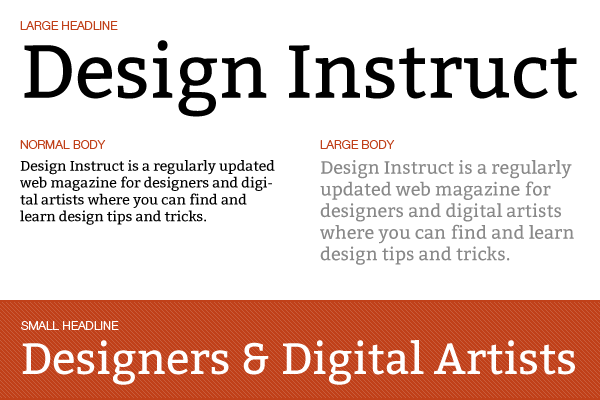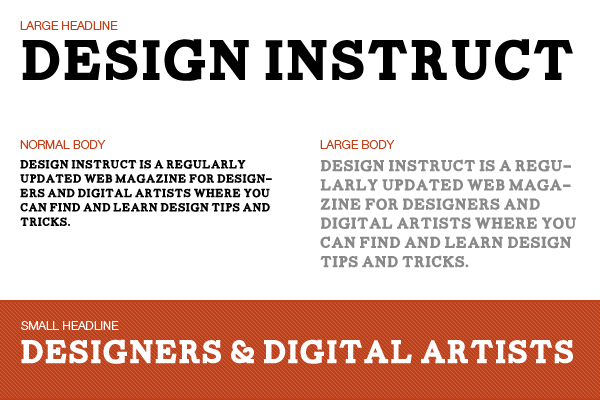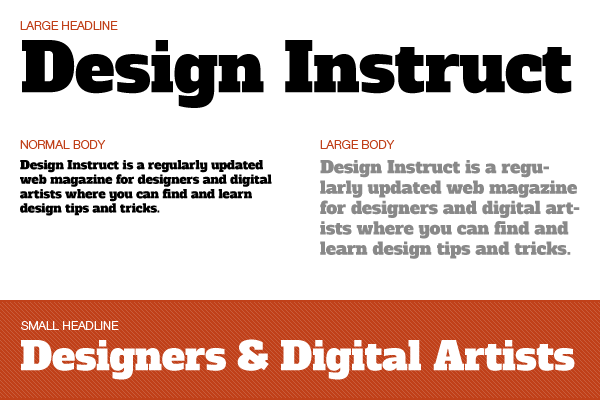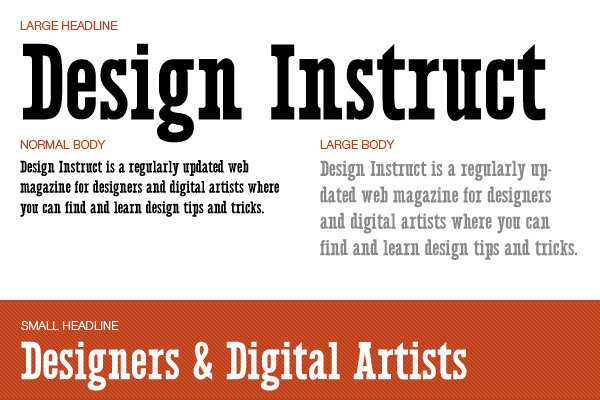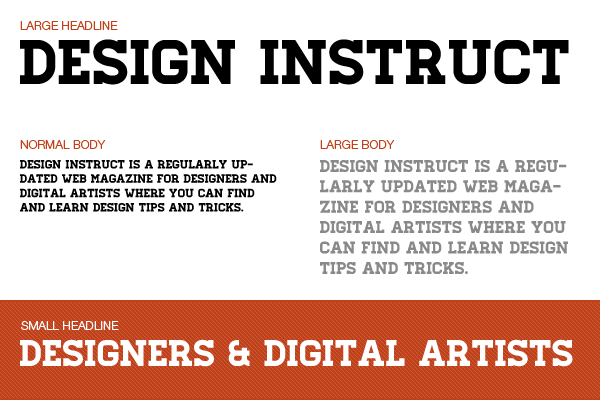
Your designs are on trend with these very popular slab serif fonts. Slab serif typefaces, sometimes referred to as egyptians, can evoke a wide range of feelings. Brosia slab serif font by subectype & orenari 22 downloads. This one could make for really interesting 17. It comes with 3 weights: Download 43 fonts, we have slab serif free slab serif fonts for download. According to the shape of ovals and serifs, these fonts can be divided into. Z y m m oblik serif tour de force 1 style. Z y m m permian slab permian typeface 3 styles. Download free slab serif fonts for commercial and personal use. Try again later, or use the feedback form! Font is available in all formats and is applicable for website, adobe photoshop and any other editor. Every font is free to download! Z y m m octin vintage typodermic 1 style. Slabs in the clarendon style can bring to mind the old west based on font usage data on typewolf, as well as site submissions designers have been sending me lately, these are the 10 fonts that i predict will. Uploaded by zemin (1 styles). Download the best slab serif fonts from the web that are robust, gorgeously designed and perfect for any design project. This slab serif typeface is extended—we get an extra long width here. Hellenic wide slab serif fonts. 16 timelessly modern, beautiful slab serif fonts. Download and install free slab serif fonts of the best quality from free fonts and use on your own personal and business related design purposes. Thank you, we will add this font as quickly as possible! 1 matching request on the forum. Jerome condensed slab serif typeface inspired by compact, strong, and solid font. Hapna slab serif w00 bold font info. Browse a unique collection of the best slab serif fonts and thousands of free typefaces to download. Report a violation add to list. Available for personal & commercial. If you love the look of a slab condensed font, here's another one that's worth a download. It reads well at smaller. One place where slab serif fonts were used at one point was typewriters, so now you can physically imagine what it looks like (unless of course you've never seen a typewriter, than we're just getting old.
This slab serif typeface is extended—we get an extra long width here.
Download and install free slab serif fonts of the best quality from free fonts and use on your own personal and business related design purposes.
Slab Serif Fonts Befonts Download Free Fonts. This slab serif typeface is extended—we get an extra long width here. Every font is free to download! Jerome condensed slab serif typeface inspired by compact, strong, and solid font. Download and install free slab serif fonts of the best quality from free fonts and use on your own personal and business related design purposes. Download free slab serif fonts for commercial and personal use. Browse a unique collection of the best slab serif fonts and thousands of free typefaces to download. It comes with 3 weights: Webfonts.pro » базовые web шрифты » брусковые шрифты (slab serif). Hellenic wide slab serif fonts. Download the best slab serif fonts from the web that are robust, gorgeously designed and perfect for any design project. It reads well at smaller. If you love the look of a slab condensed font, here's another one that's worth a download. Available for personal & commercial. Download the best free slab serif fonts that are hand picked collections by our editorial experts and can be used on mac, pc, website. This one could make for really interesting 17.
10 Great Slab Serif Fonts Free For Commercial Pinspiry. Download the best free slab serif fonts that are hand picked collections by our editorial experts and can be used on mac, pc, website. Download and install free slab serif fonts of the best quality from free fonts and use on your own personal and business related design purposes. It reads well at smaller. This one could make for really interesting 17. Download the best slab serif fonts from the web that are robust, gorgeously designed and perfect for any design project. Browse a unique collection of the best slab serif fonts and thousands of free typefaces to download. Available for personal & commercial. This slab serif typeface is extended—we get an extra long width here. If you love the look of a slab condensed font, here's another one that's worth a download. Download free slab serif fonts for commercial and personal use. Jerome condensed slab serif typeface inspired by compact, strong, and solid font. Hellenic wide slab serif fonts. Every font is free to download! Webfonts.pro » базовые web шрифты » брусковые шрифты (slab serif). It comes with 3 weights:
50 Best Free Slab Serif Fonts Of 2019 Page 5 Of 9 All Free Fonts. This slab serif typeface is extended—we get an extra long width here. It reads well at smaller. Jerome condensed slab serif typeface inspired by compact, strong, and solid font. It comes with 3 weights: Download free slab serif fonts for commercial and personal use. Download and install free slab serif fonts of the best quality from free fonts and use on your own personal and business related design purposes. Available for personal & commercial. Every font is free to download! This one could make for really interesting 17. Hellenic wide slab serif fonts. Download the best slab serif fonts from the web that are robust, gorgeously designed and perfect for any design project. Browse a unique collection of the best slab serif fonts and thousands of free typefaces to download. If you love the look of a slab condensed font, here's another one that's worth a download. Webfonts.pro » базовые web шрифты » брусковые шрифты (slab serif). Download the best free slab serif fonts that are hand picked collections by our editorial experts and can be used on mac, pc, website.
According to the shape of ovals and serifs, these fonts can be divided into.
Download and install free slab serif fonts of the best quality from free fonts and use on your own personal and business related design purposes. Download 19+ popular slab serif fonts voted best free fonts by designers (2017 update). This slab serif typeface is extended—we get an extra long width here. Hapna slab serif w00 bold font info. Uploaded by zemin (1 styles). It comes with 3 weights: Please enter your email address receive a free font daily from fonts101.com in your email! Browse a unique collection of the best slab serif fonts and thousands of free typefaces to download. Try again later, or use the feedback form! Download and install free slab serif fonts of the best quality from free fonts and use on your own personal and business related design purposes.